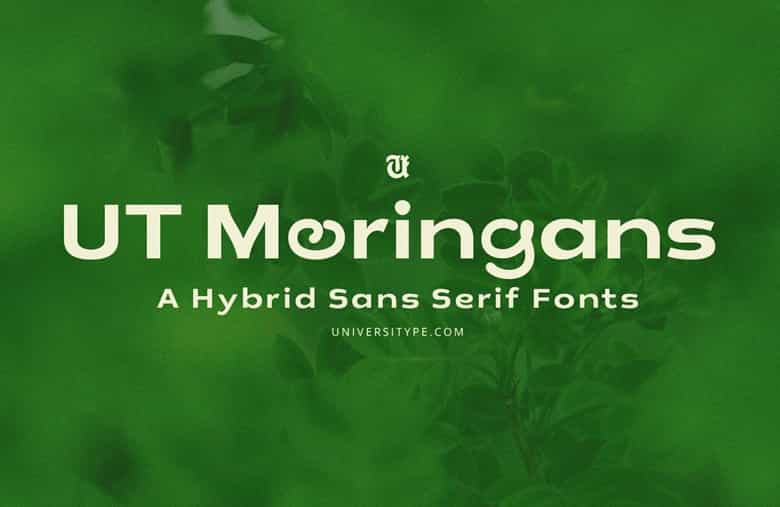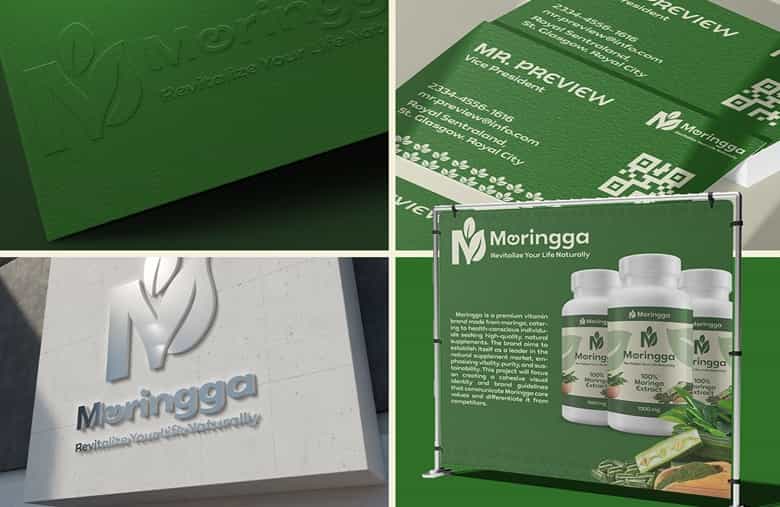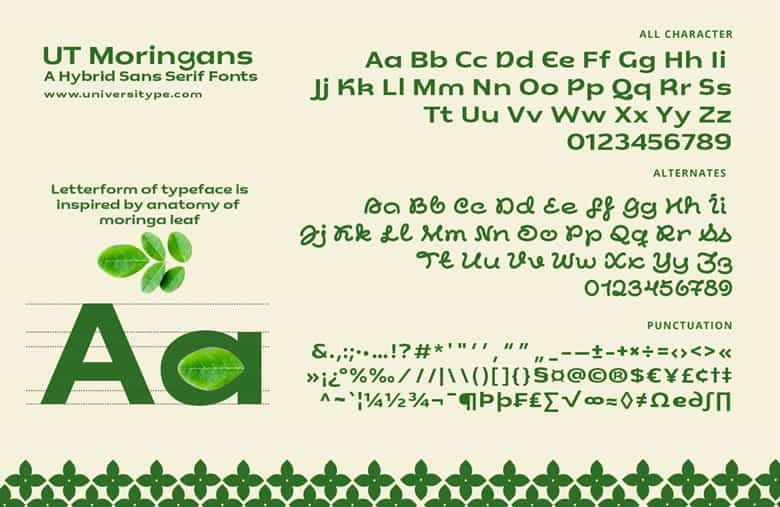
The design of UT Moringans is informed by the round shape of the moringa leaf with no sharp edges. The moringa tree is also known as the ‘miracle tree’ and is associated with growth, and health. All of these characteristics have been subliminally incorporated into the overall shape of the font’s letters. This typeface bridges two worlds: The rigid monotone of sans serifs and the free flowing curves of the natural world.